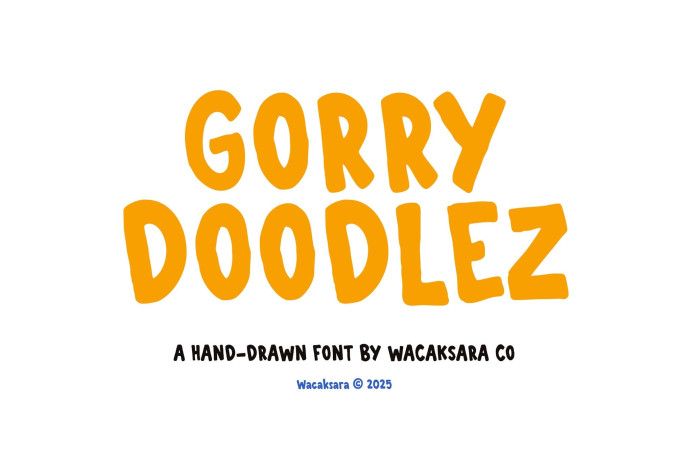
Gorry Doodlez Hand-Drawn Font
Designer: wacaksara
Gorry Doodlez Hand-Drawn Font is a fun and playful hand-drawn font that brings a cheerful, doodly spirit to your creative projects. Designed with organic strokes and imperfect shapes, this cartoon style display font adds a warm, human touch to every word.
Perfect for children’s book, posters, packaging, logo design, creative branding, menu design, quotes, and more. Gorry Doodlez makes your design look friendly, casual, and full of personality.
The font family comes in two styles : Rough and Sans, each style with multiple variations – Regular, Slanted, Solid, and Outline. Giving you flexibility to mix and match for different moods or effects.
Each letter is hand-crafted to look lively and imperfect in the best way, making it a great choice for projects that want to feel authentic, handmade, and full of character.
• Two Styles (Rough and Sans)
• Numerals & Punctuations
• Accents ( Multilingual Characters )